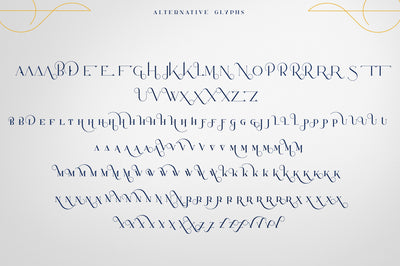
Lotus Eater – Vintage Font + Extras
Introducing Lotus Eater – Vintage font + Extras
Ever Wanted to create awesome vintage letterings or logo templates in few clicks ? Well now you can 🙂
Lotus Eater is clean, vintage font with ligatures, tons of alternative glyphs, ornament and multilingual support. It’s a very versatile font that works great in large and small sizes.
Lotus Eater is perfect for branding projects, home-ware designs, product packaging, magazine headers – or simply as a stylish text overlay to any background image.
- Uppercase,lowercase, numeral,punctuation & Symbol
- Ligatures
- Tons of alternative glyphs
- 52 Ornaments
- Multilingual support